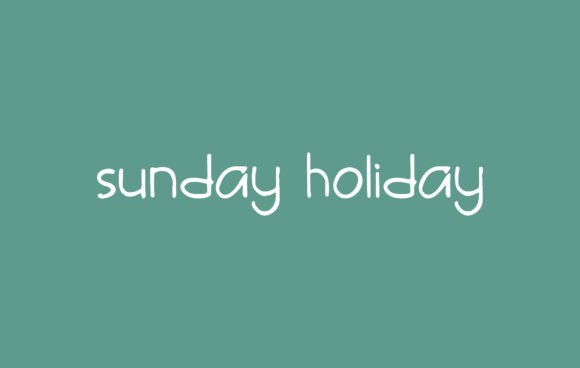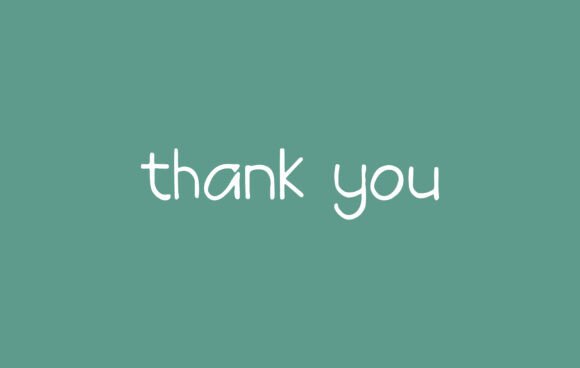
Introduction to Hoppydoodle Font
Have you ever been in the middle of a creative project, pouring your heart and soul into it, and suddenly, the perfect font appears to tie everything together? For many designers, this moment is a game-changer. It’s the moment when the entire project starts to feel cohesive and polished. For those who have experienced this magic, we have exciting news – the Hoppydoodle Font is here to elevate your designs to the next level.
This authentic handwritten font boasts a romantic touch that’s sure to captivate your audience. With its legibility and versatility, it’s perfect for a wide range of creative endeavors, from magazine headlines to wedding invitations. Whether you’re a seasoned designer or just starting out, the Hoppydoodle Font is an invaluable resource that will take your designs from good to great.
Key Features of Hoppydoodle Font
- Unique, playful design perfect for creative projects, offering a high-quality aesthetic that elevates any design.
- Perfect for use in digital designs, such as social media graphics, website headers, and advertisements, as well as print materials, including business cards and brochures.
Honest Review: Hoppydoodle Font
As a designer, I’m always on the lookout for high-quality design resources that can elevate my creative projects. The Hoppydoodle Font is one such resource that caught my attention. In this review, I’ll share my honest thoughts on what works well and what could be improved.
- The Hoppydoodle Font is incredibly versatile and can be used for a wide range of creative projects, from children’s books to beer labels.
- The font has a unique, playful feel that’s perfect for adding a touch of whimsy to your designs.
- The transparent background makes it easy to layer and combine with other design elements.
- The font may not be suitable for formal or professional designs due to its playful nature.
- The lack of bold or italic variants may limit its use in certain design contexts.
Overall, the Hoppydoodle Font is a fun and creative design resource that’s perfect for designers looking to add a touch of personality to their projects. While it may have some limitations, its versatility and unique feel make it a valuable addition to any design toolbox.
The Hoppydoodle Font is suitable for various creative projects, including:
1. Social media graphics
2. Blog posts
3. Presentations
4. Infographics
Tips for getting the most out of the Hoppydoodle Font include:
1. Experiment with different font sizes and colors.
2. Use the font on transparent backgrounds for a more modern look.
3. Combine the font with other design elements for a unique visual effect.